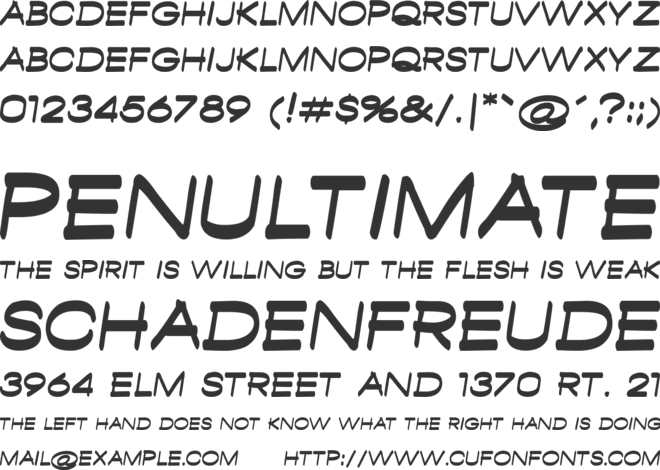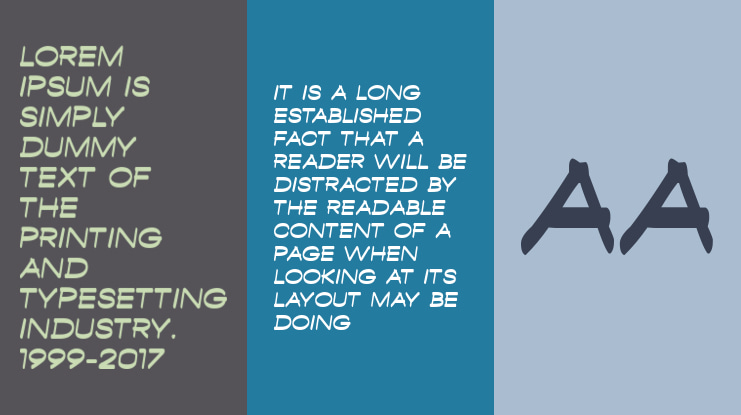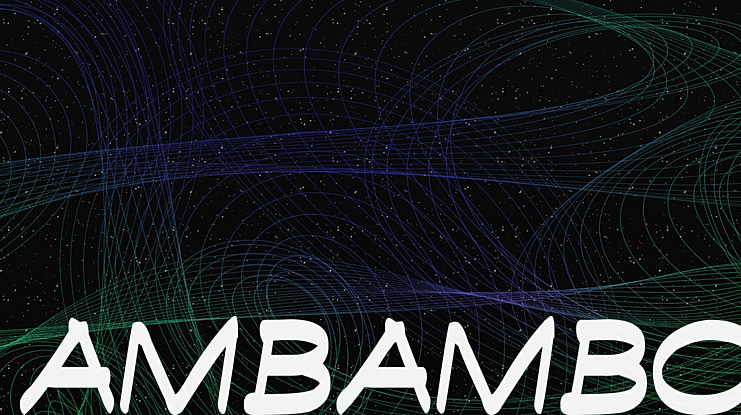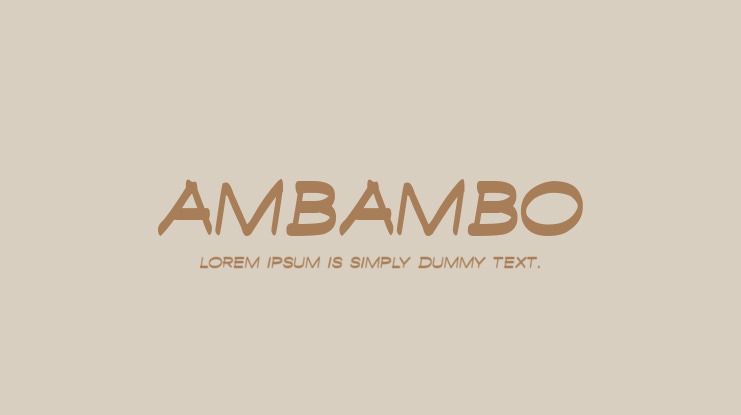
Ambambo Font Family
"Ambambo" is an exclamatory word (like 'wow!') in Malayalam. This is a comic font, by Ajith Rajan. Visit http://artvsaccounting.tk/fonts for more free fonts and for license information.